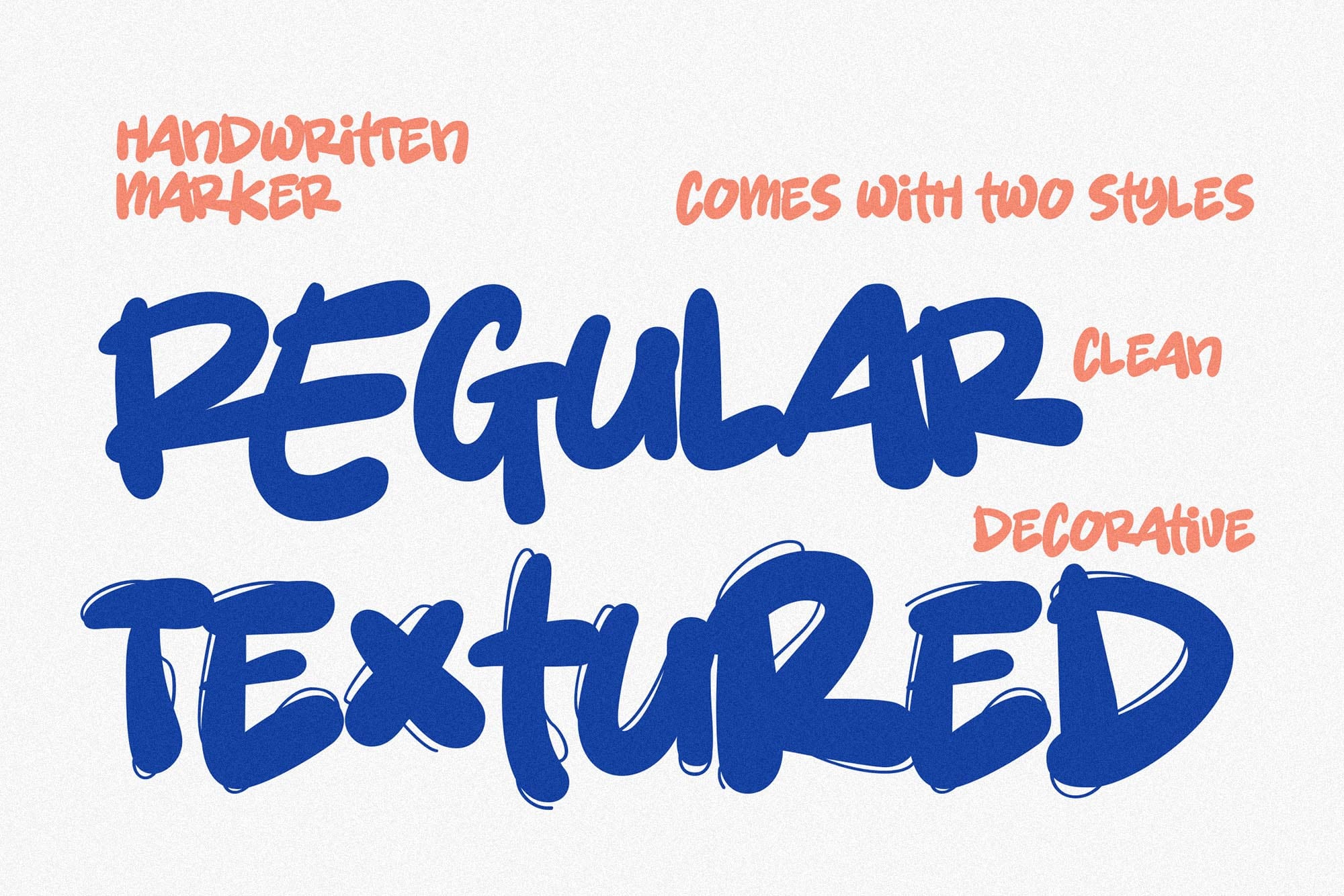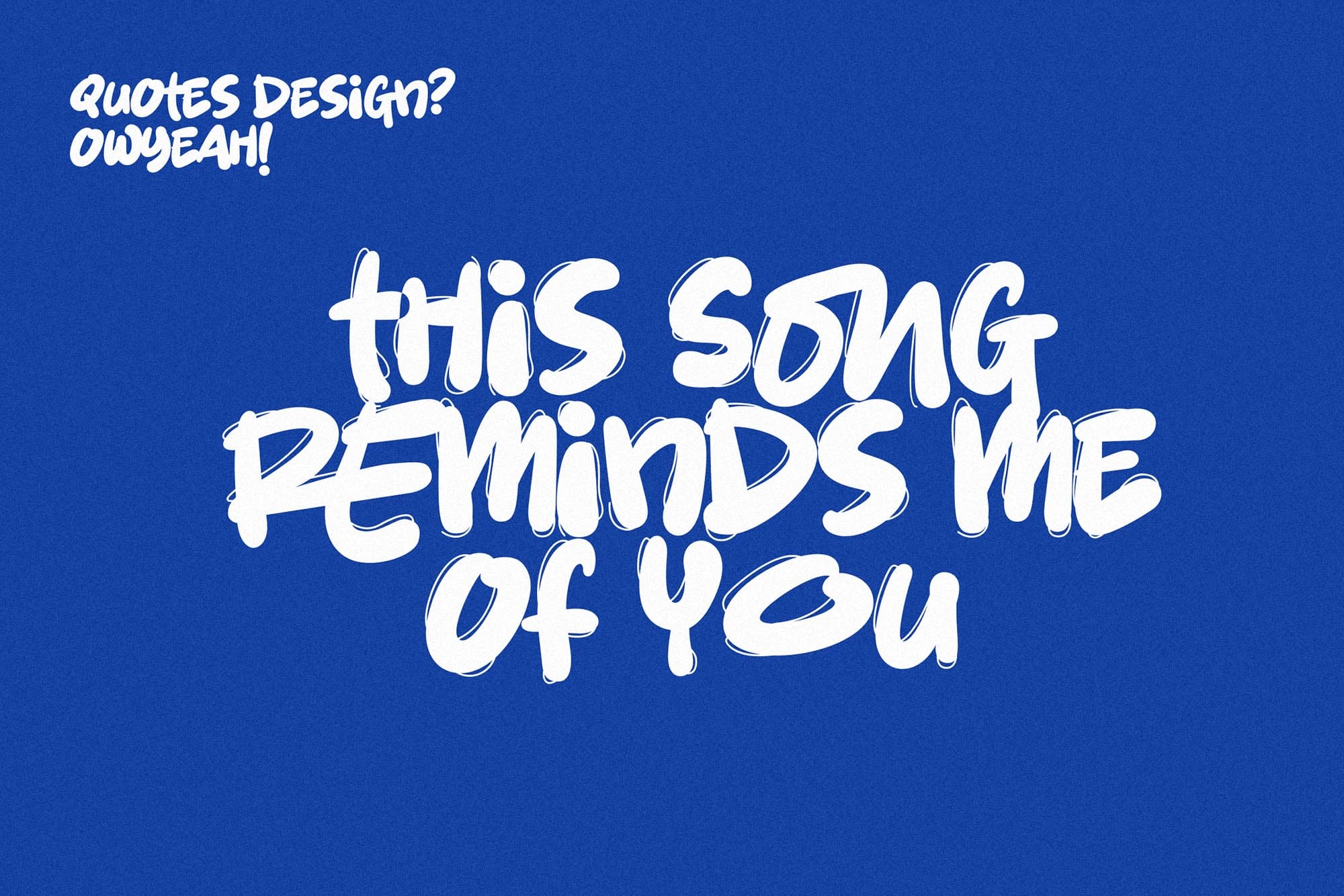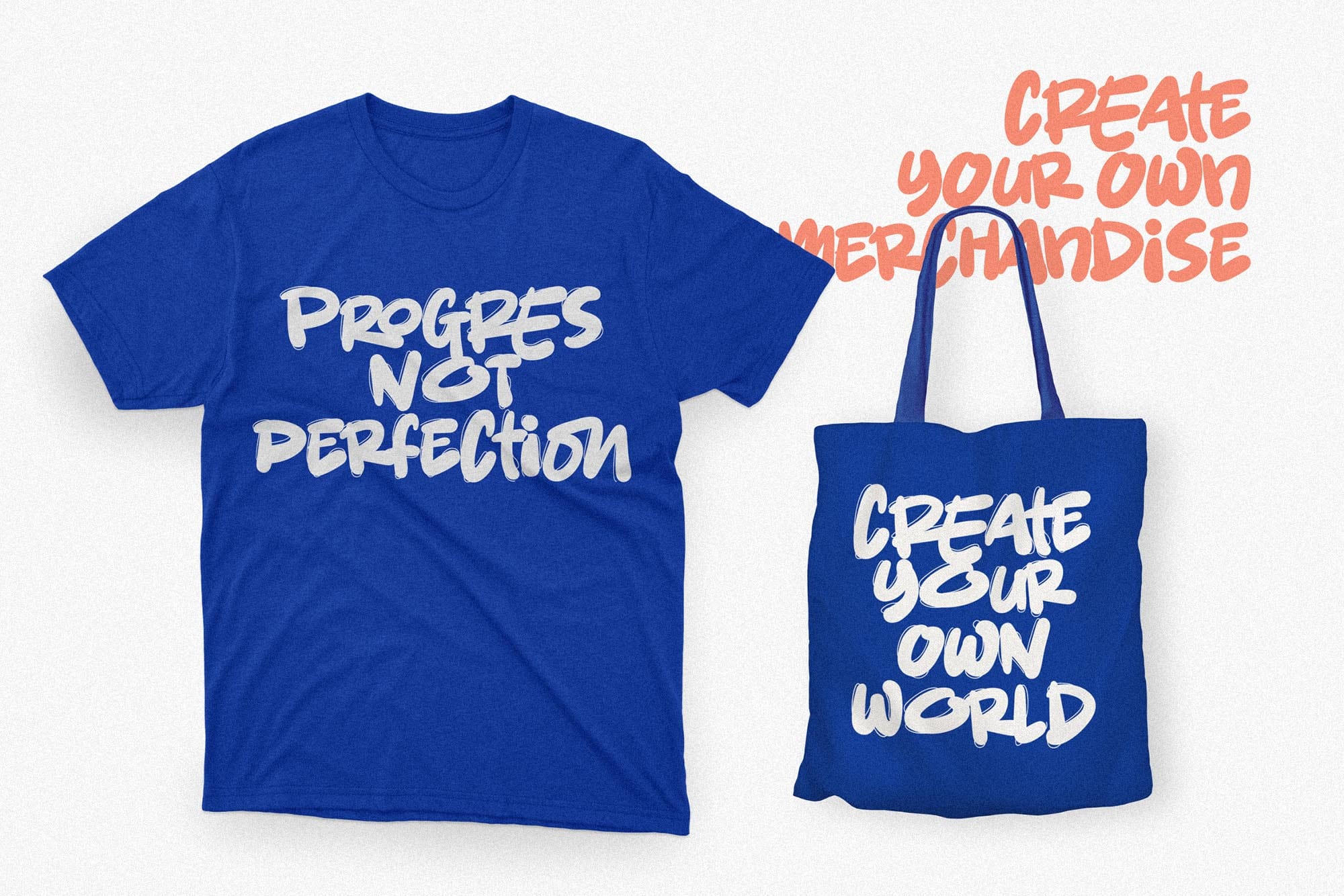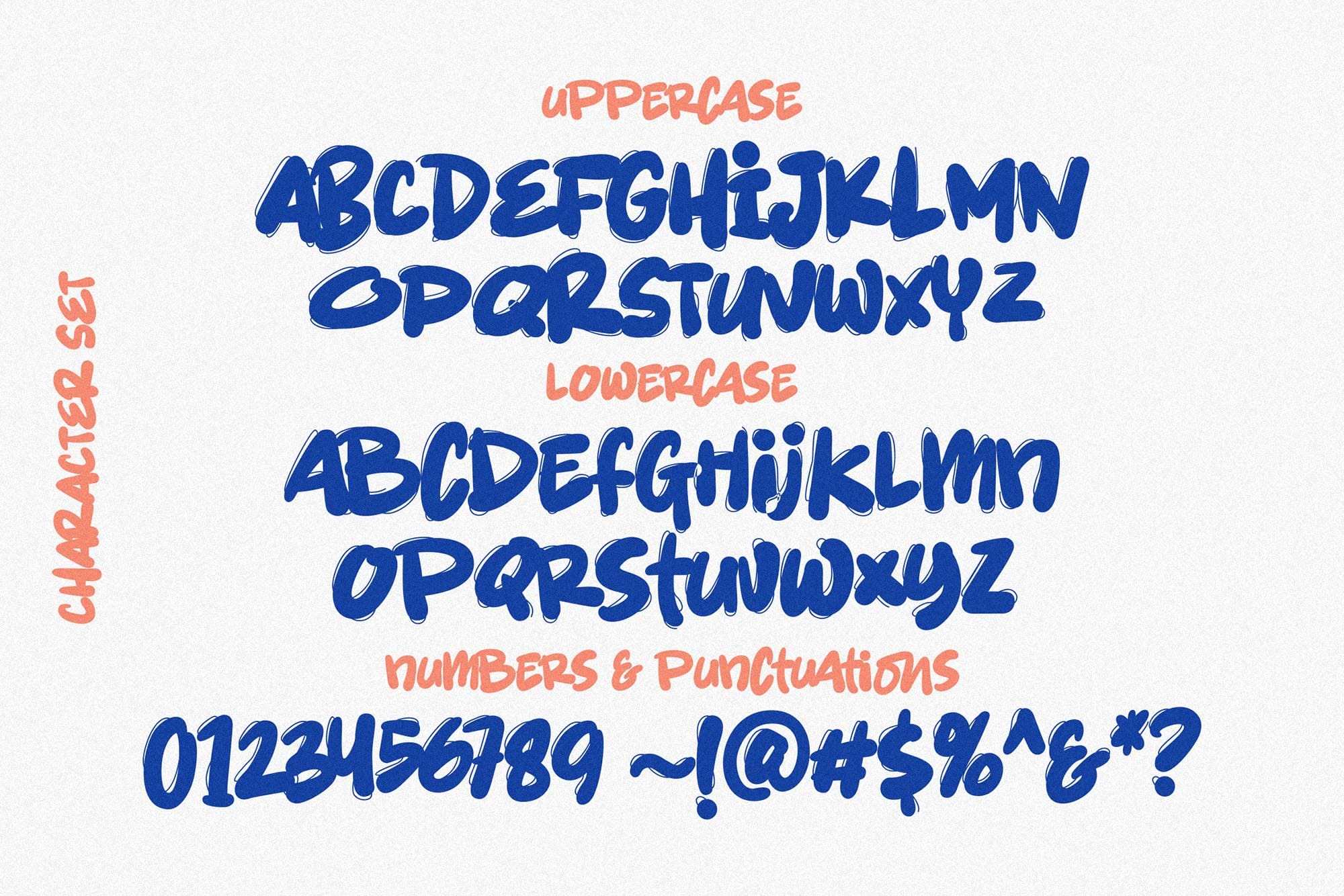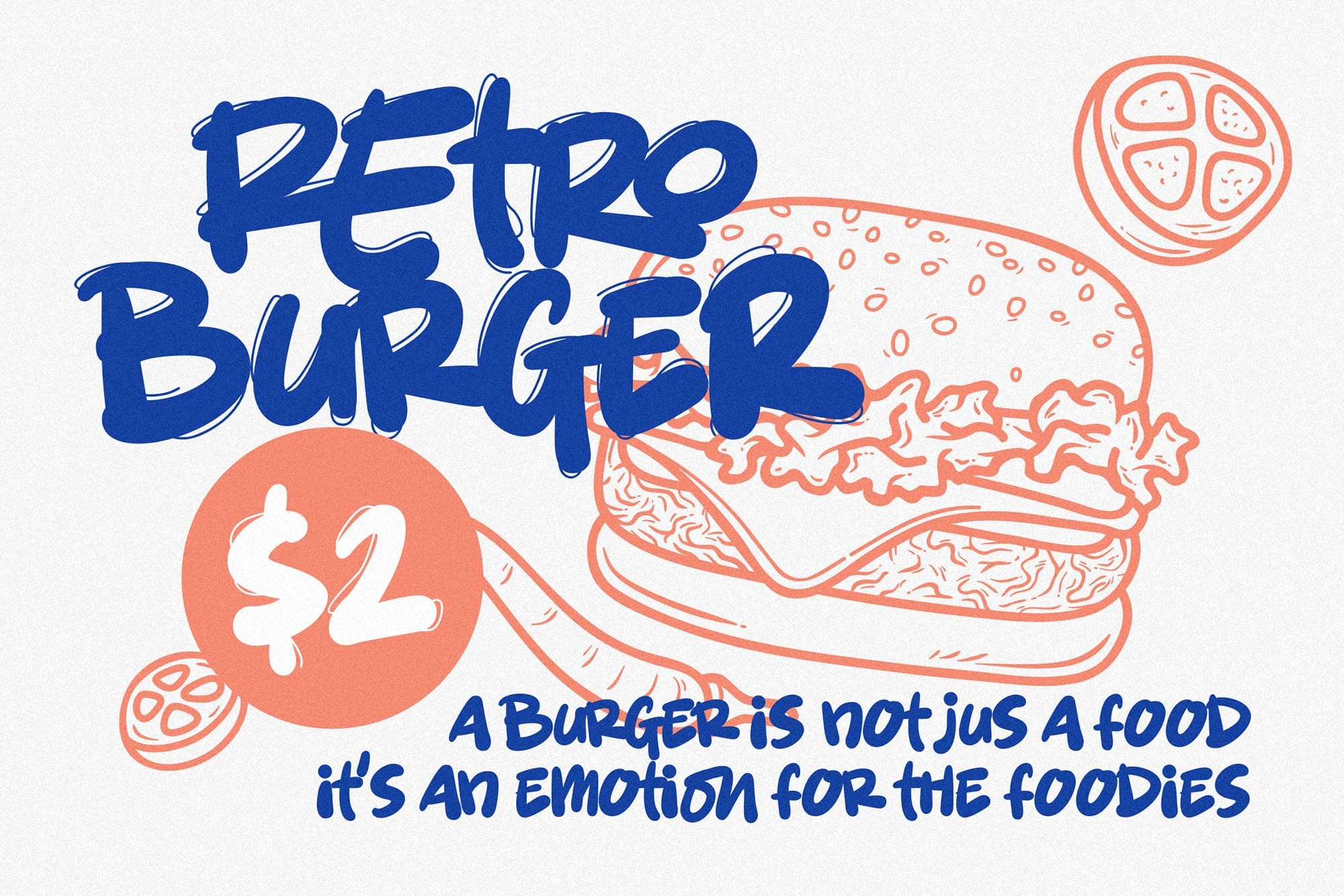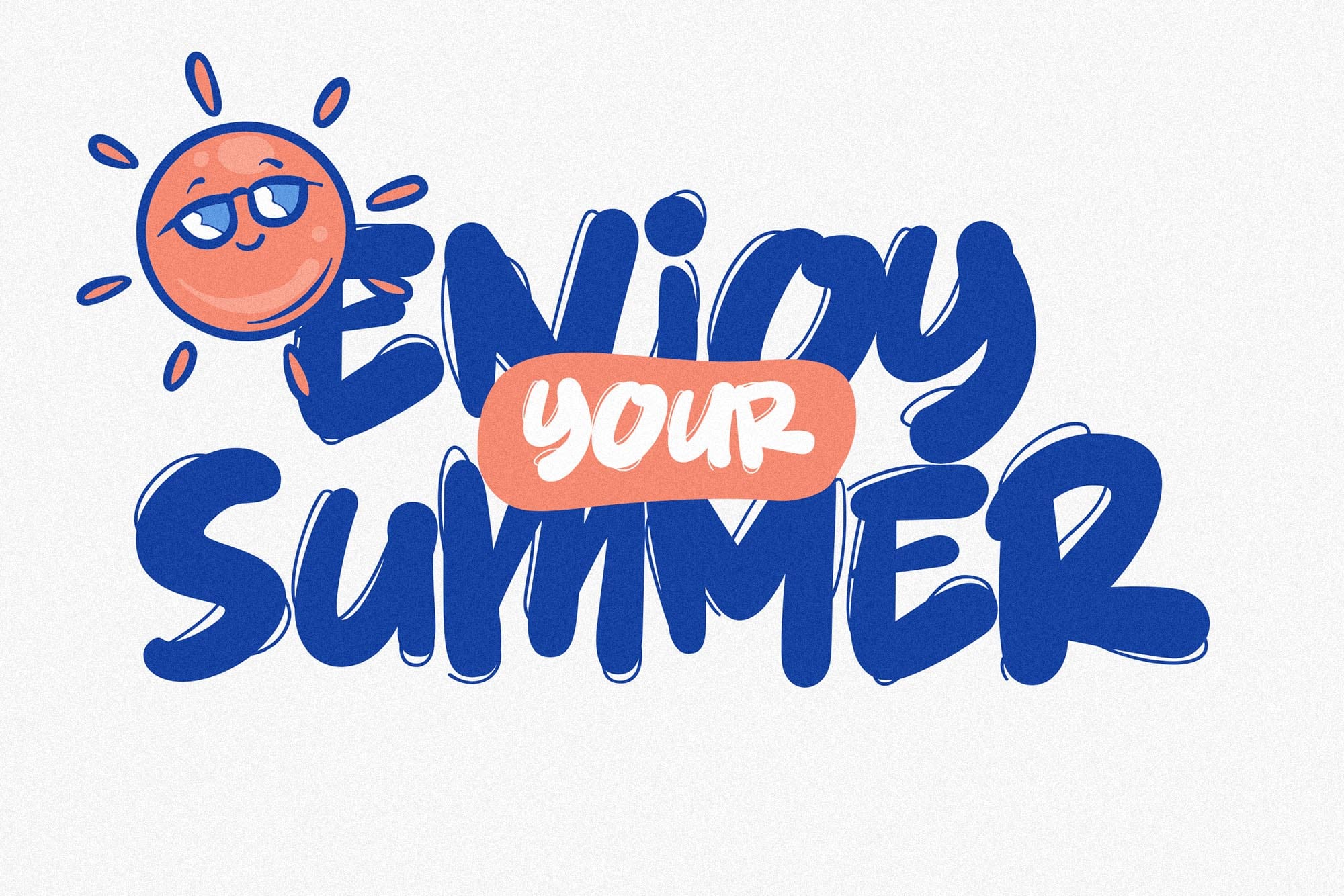
Ontro Buck Decorative Marker Font for Bold Creative Work
Ontro Buck Decorative Marker Font is made for designers who want expressive lettering with a confident handmade feel. It brings the character of marker-style writing into a practical display font package, giving your headlines, logos, posters, and visual branding a strong handcrafted presence.
This font is a good choice when your design needs personality without feeling too polished or overly formal. Ontro Buck has a decorative marker look that feels direct, bold, and energetic. It works especially well for creative projects that need a human touch, from packaging labels and merchandise graphics to social media artwork and promotional visuals.
With both regular and textured versions included, Ontro Buck gives you flexibility for different design moods. Use the cleaner style when you need a stronger, more readable display look, or choose the textured version when your project needs more grit, movement, and handmade surface detail.
Ontro Buck has a decorative marker style with a bold display personality. The letterforms are designed to feel expressive and practical, making them suitable for designs that need to catch attention quickly. Its handcrafted appearance helps create a warm and memorable impression, especially for brands that want to feel approachable, creative, and visually distinct.
The textured version adds extra character for projects that need a more organic finish. It can help your design feel less digital and more crafted, which is useful for product labels, apparel prints, posters, quote graphics, music-related visuals, and casual branding systems.
This font fits naturally into designs that need confidence, energy, and a slightly raw creative voice. It is not a quiet background font. Ontro Buck is best used where the typography becomes part of the visual statement.
Best Use Cases
Ontro Buck Decorative Marker Font is ideal for display-focused projects where the lettering needs to lead the design. It works well for logo concepts, brand marks, packaging headlines, label design, merchandise artwork, t-shirt graphics, stickers, posters, flyers, social media posts, and digital product covers.
For small businesses and creative studios, Ontro Buck can help create branding that feels handmade and memorable. For crafters and digital product sellers, it can add a bold lettering style to printable designs, SVG-style layouts, wall art, and product mockups.
The marker-inspired style also makes it useful for seasonal campaigns, creative promotions, kids and youth-oriented branding, lifestyle graphics, and casual event visuals. Use it for short phrases, strong titles, and expressive words that need personality.
• Decorative marker font style
• Includes regular and textured font versions
• Standard characters
• Punctuation
• Multilingual support
Designers love fonts that save time while still giving a project a clear visual direction. Ontro Buck helps you move quickly from a blank canvas to a strong typographic layout. Its marker-inspired design gives words an immediate personality, so you can create bold compositions without relying on too many extra decorative elements.
The two included styles make it easier to adapt the font to different uses. The regular version can work for stronger headline clarity, while the textured version brings a more tactile, handmade mood. This gives you more room to create visual contrast inside a single project.
For branding work, Ontro Buck can help a logo or product label feel more expressive. For social media and poster design, it gives short phrases a strong visual rhythm. For apparel and merchandise, it brings the kind of bold lettering style that looks confident on shirts, stickers, tote bags, and printed goods.
For a balanced layout, pair Ontro Buck with a cleaner sans serif or a contrasting display font from the Figuree Studio catalog.
Try pairing it with Midnight Workers when you need a modern sans serif companion for descriptions, supporting text, or clean brand layouts.
For a playful handwritten direction, pair it with Bakso Tahu. This pairing can work well for casual packaging, kids-related projects, social media content, and friendly brand visuals.
Ontro Buck Decorative Marker Font is a strong choice for designers who want bold handmade lettering with practical file support and a textured creative option. Use it to bring personality into logos, packaging, posters, apparel, social media graphics, and display-focused branding projects.